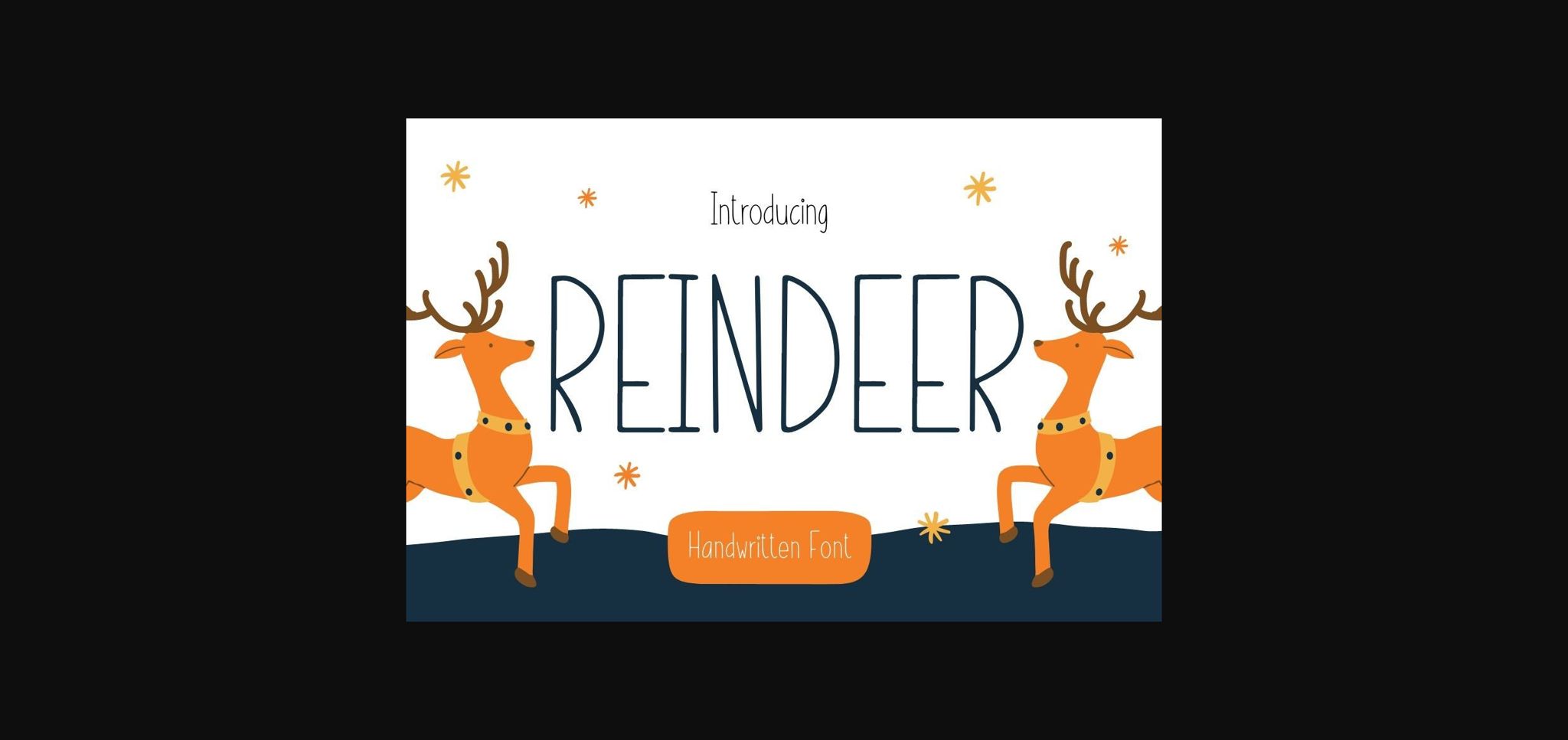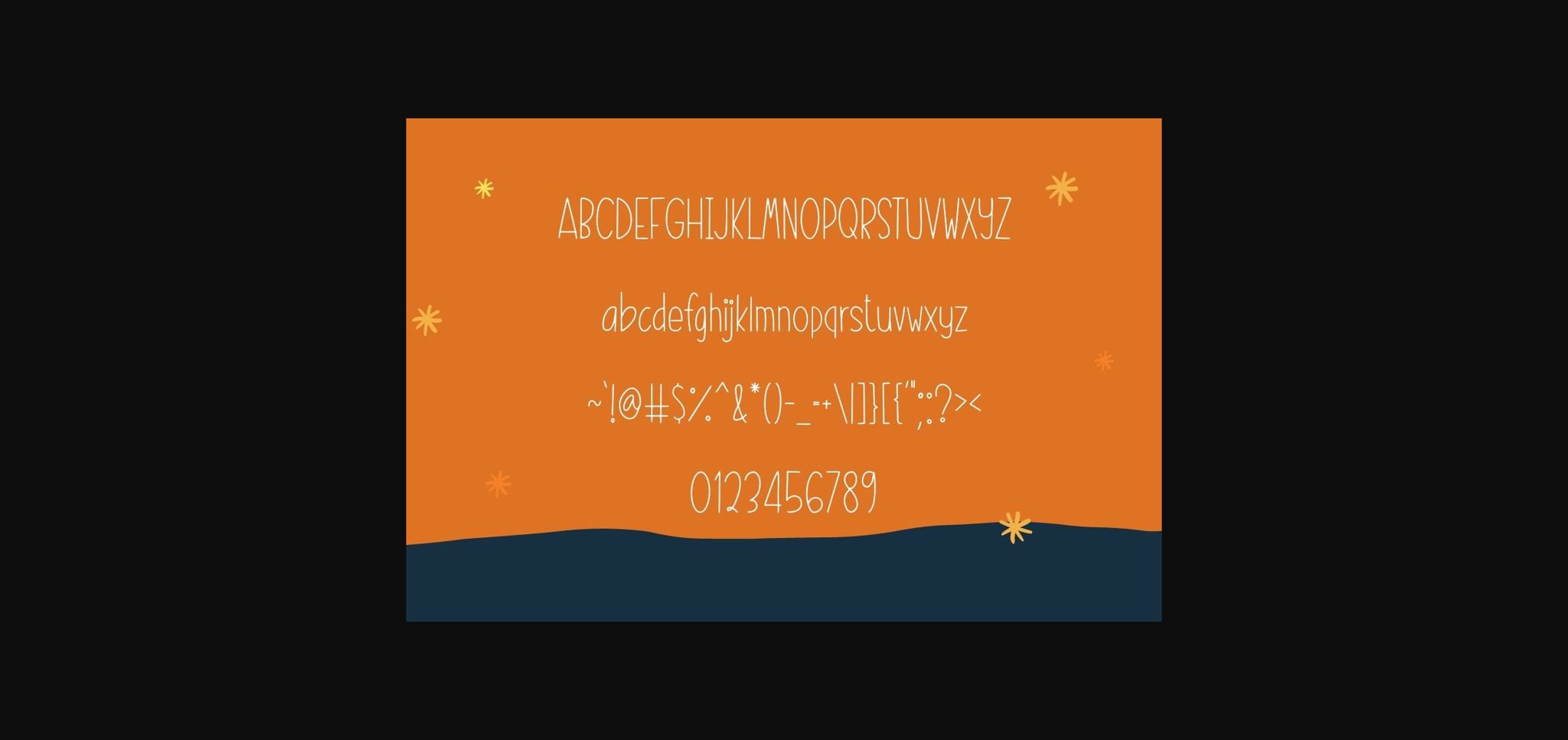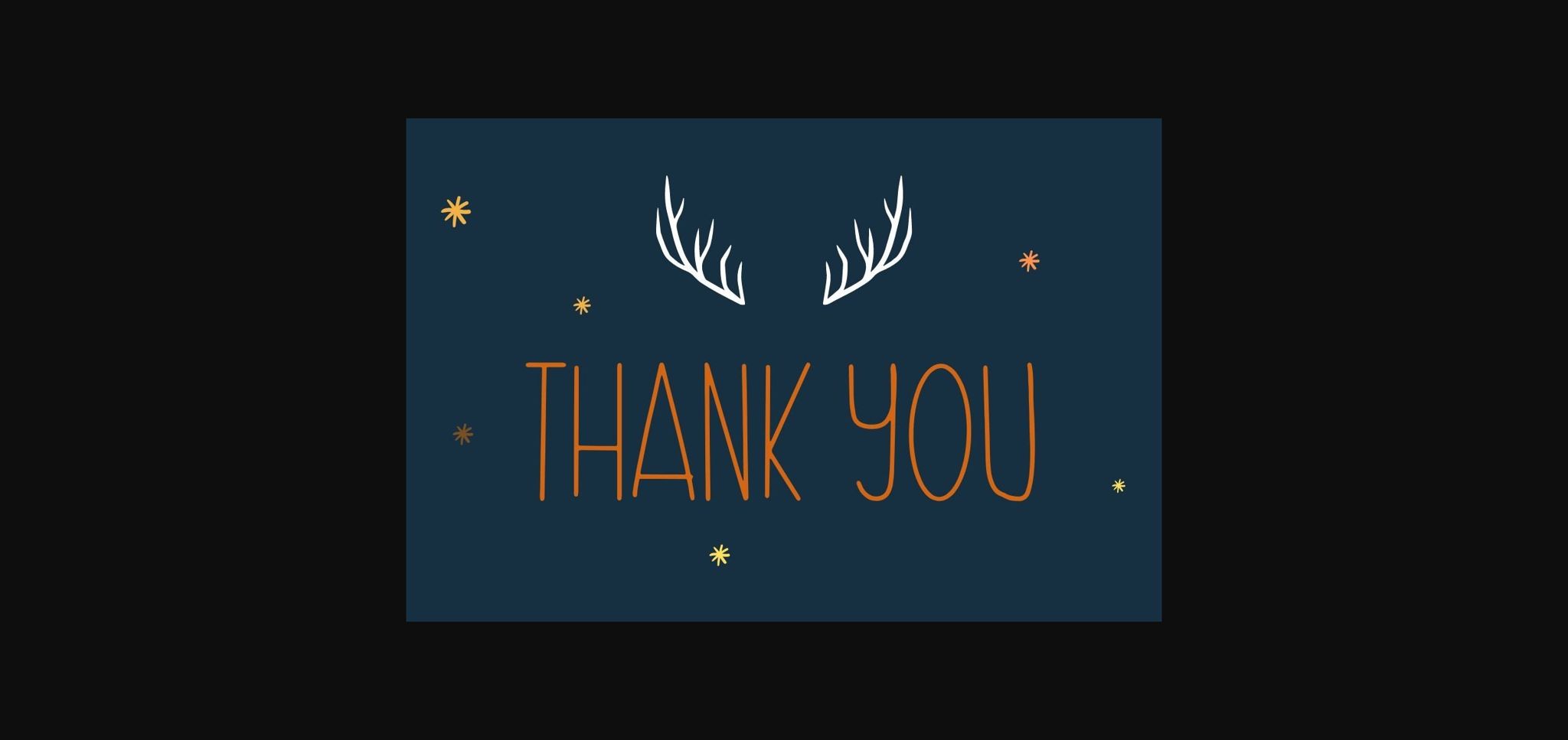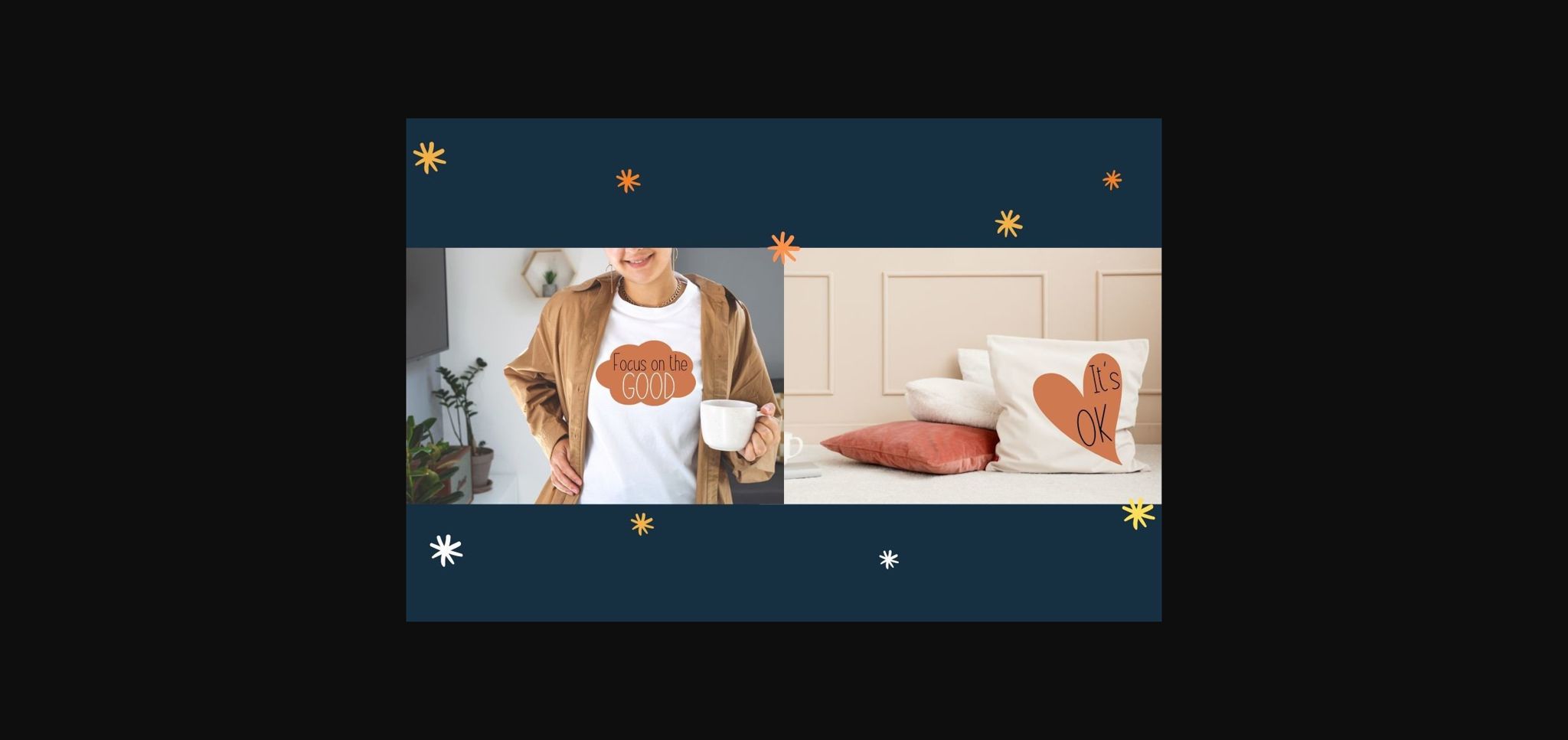
Reindeer is a minimal, skinny, and neat sans-serif font. You can apply it to greeting cards and note-taking, or add it to your creative ideas and notice how it makes them stand out!